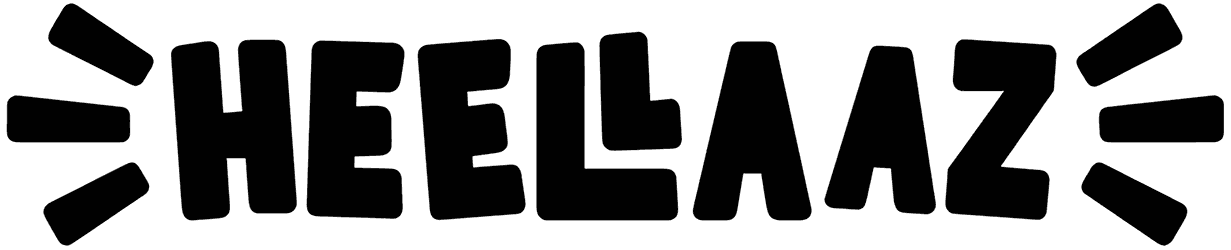
Heellaaz Font
Heellaaz is a cartoon font that is purely perfect for any kind of graphic content, including book covers, posters, illustrations, logos, and gift cards. This all-caps font can elevate your artwork to an unbelievable level by adding a sense of playfulness, love, sincerity, and jauntiness.
Although it doesn’t fully support numbers, it is not a serious problem and you can try it in your innovative ideas with the peace of mind.